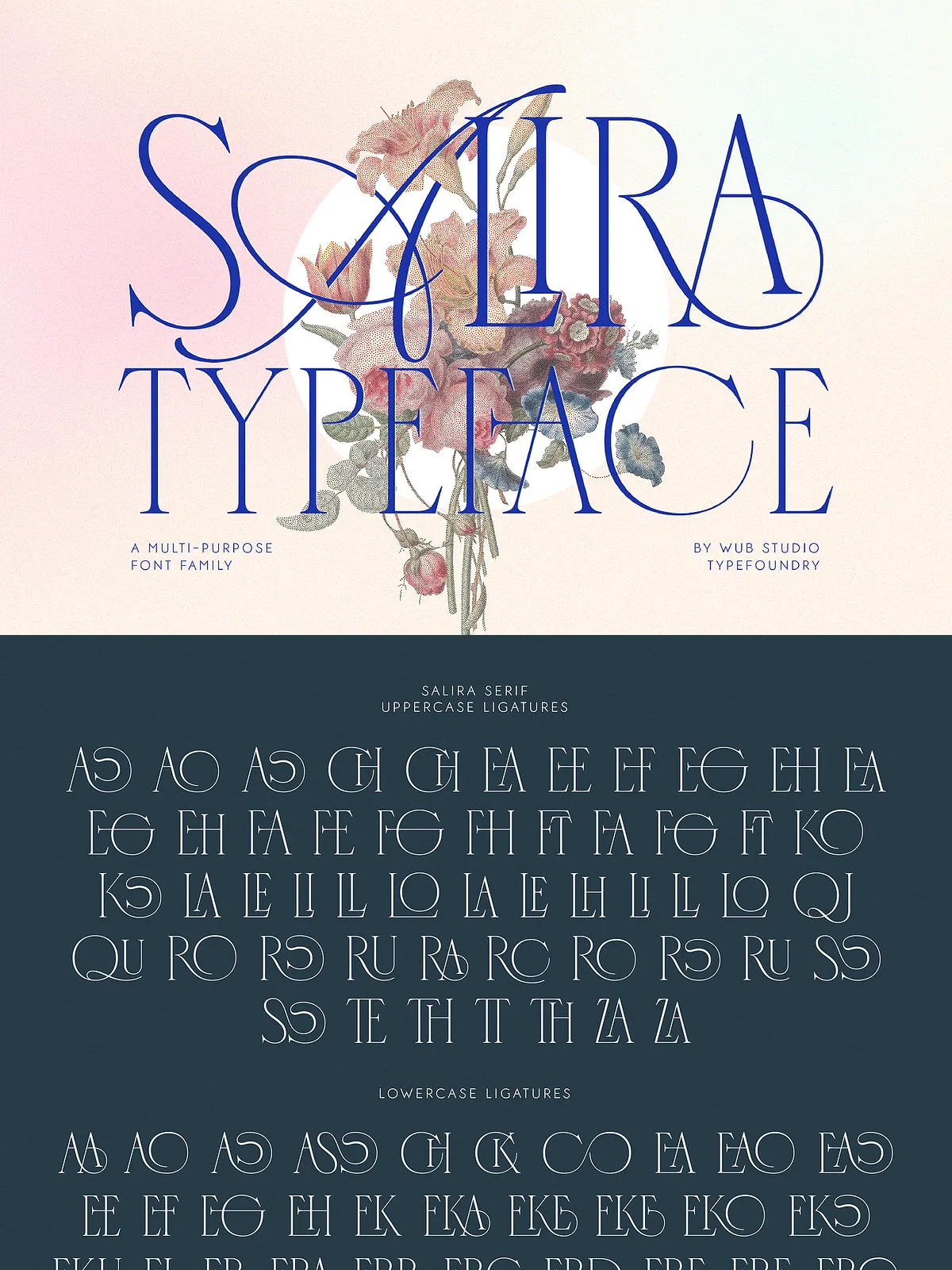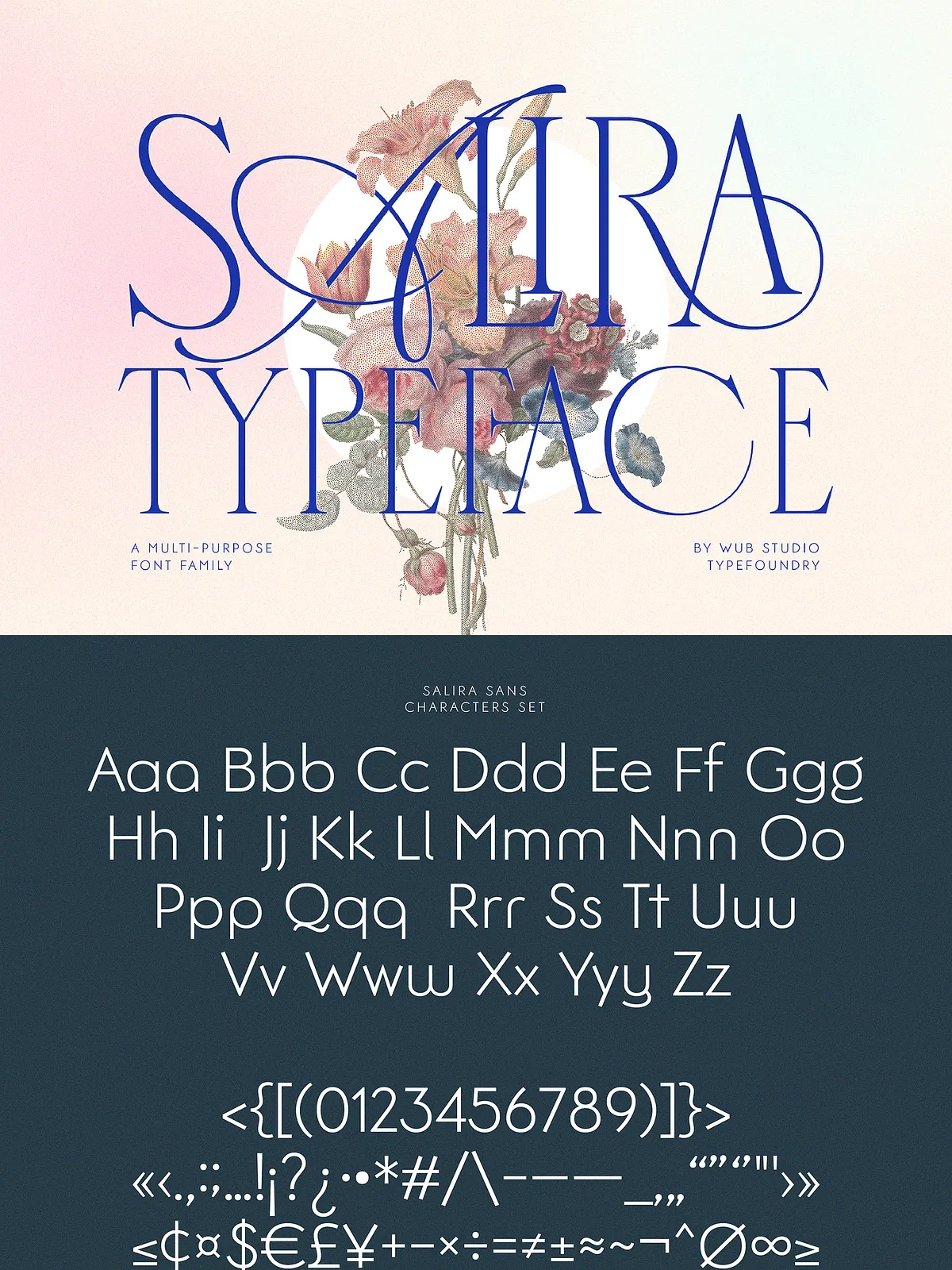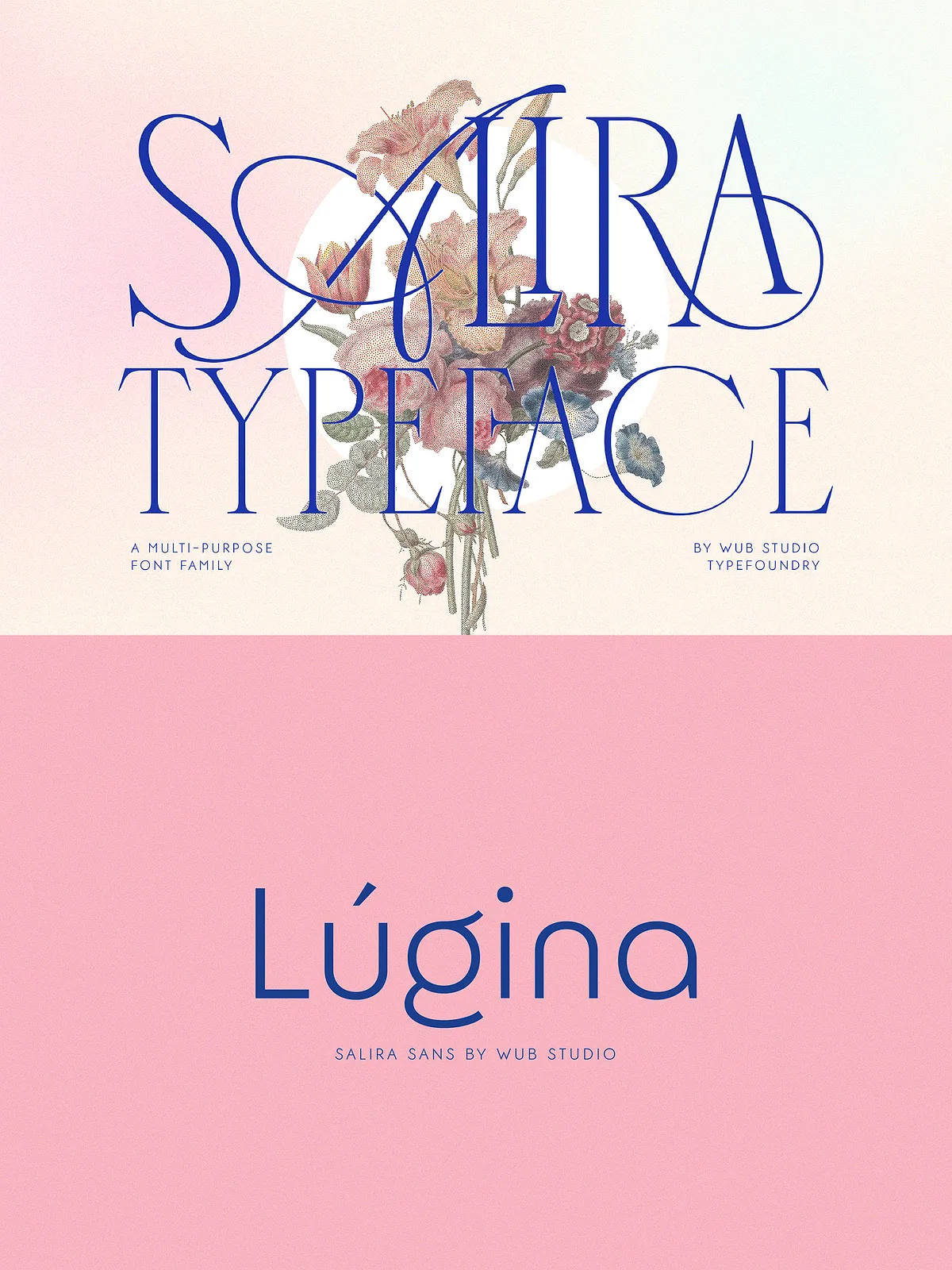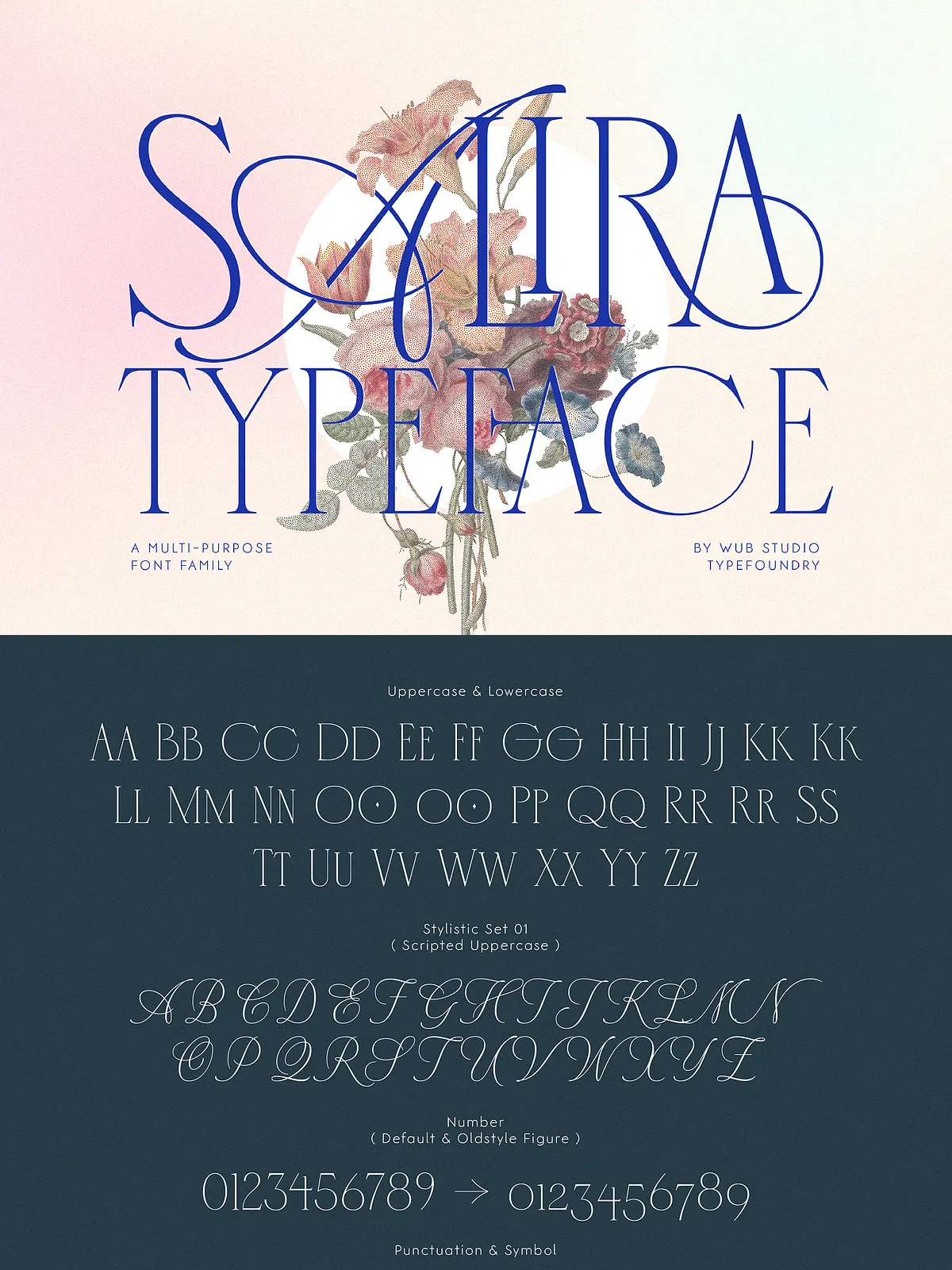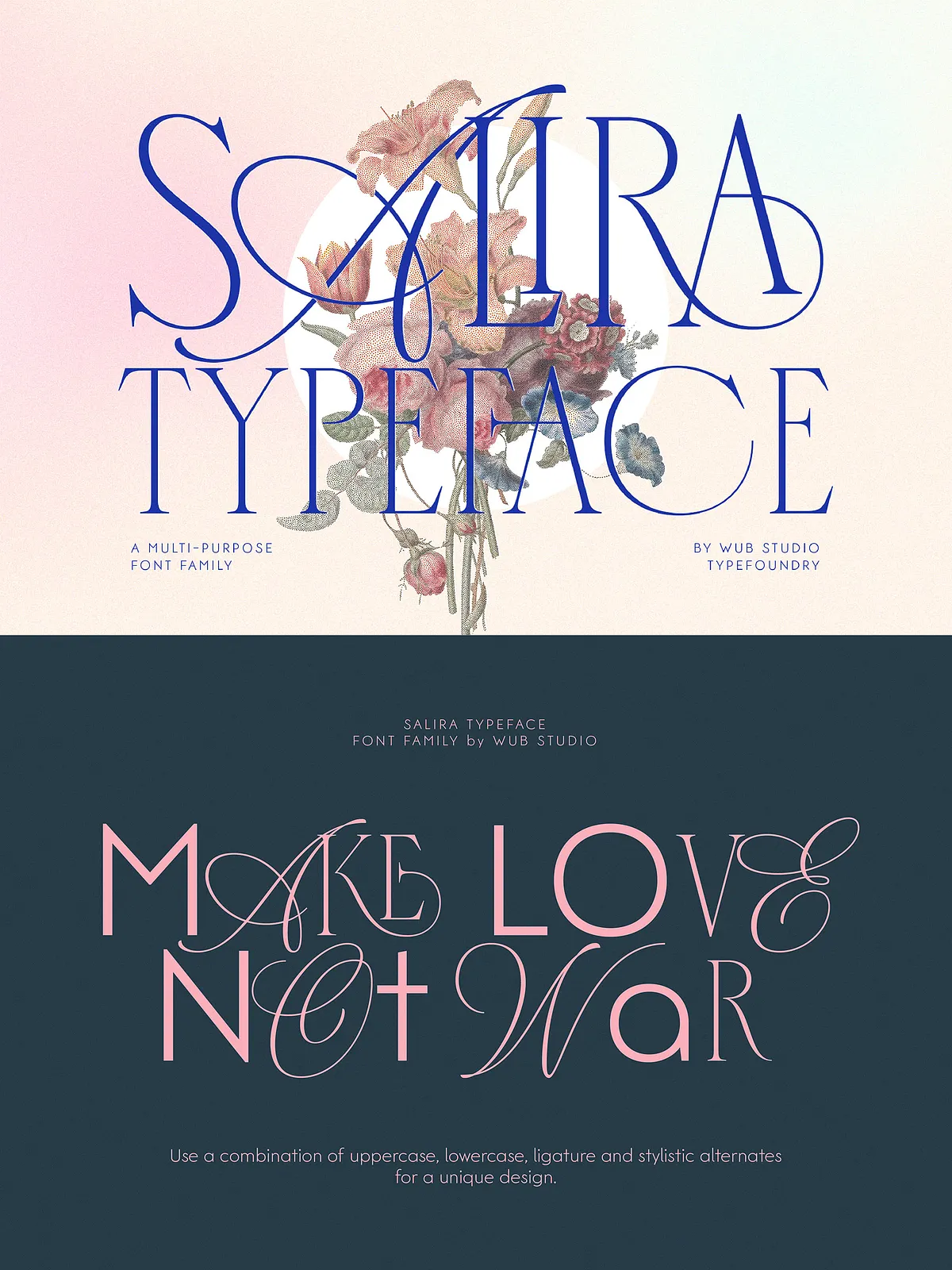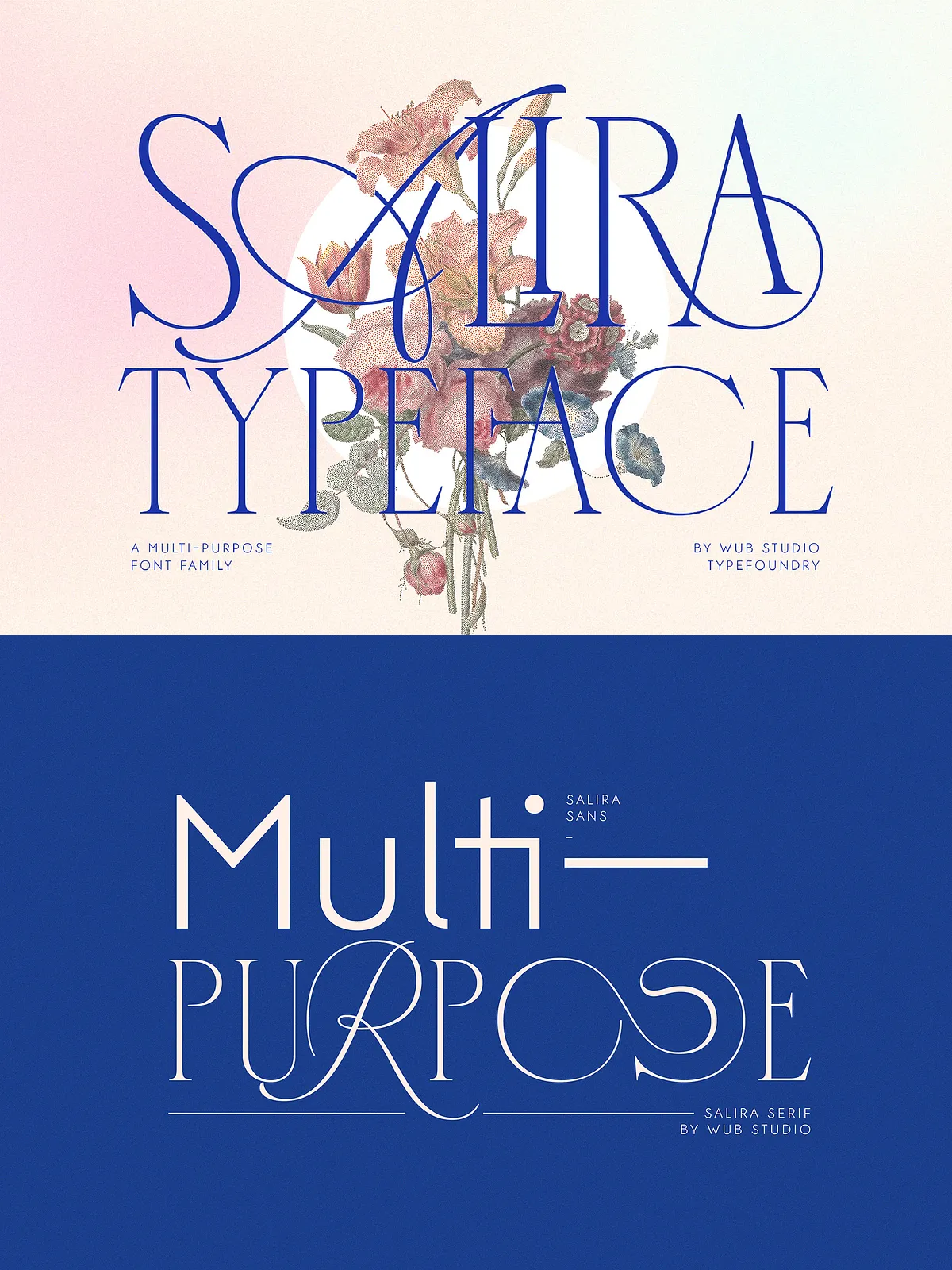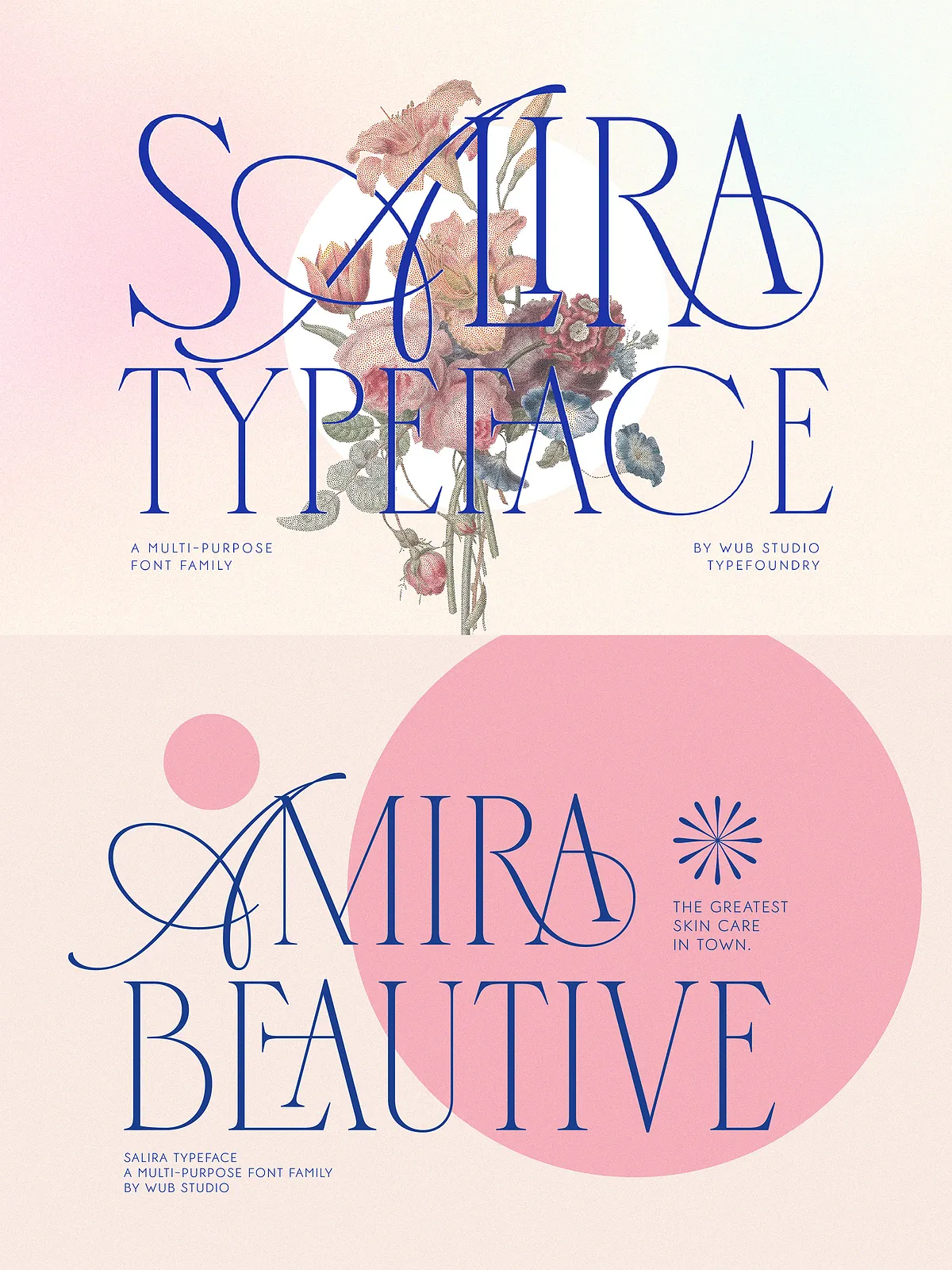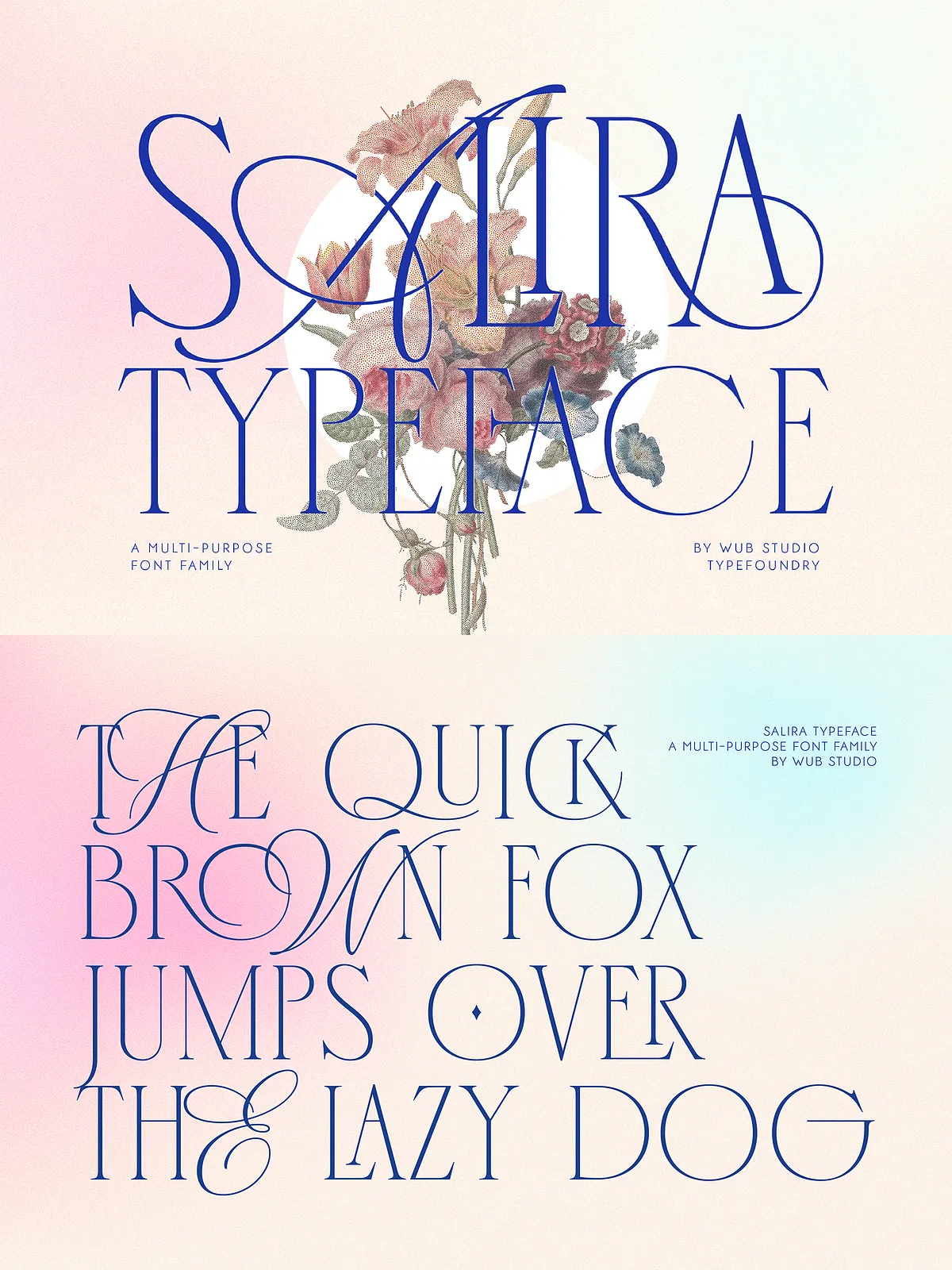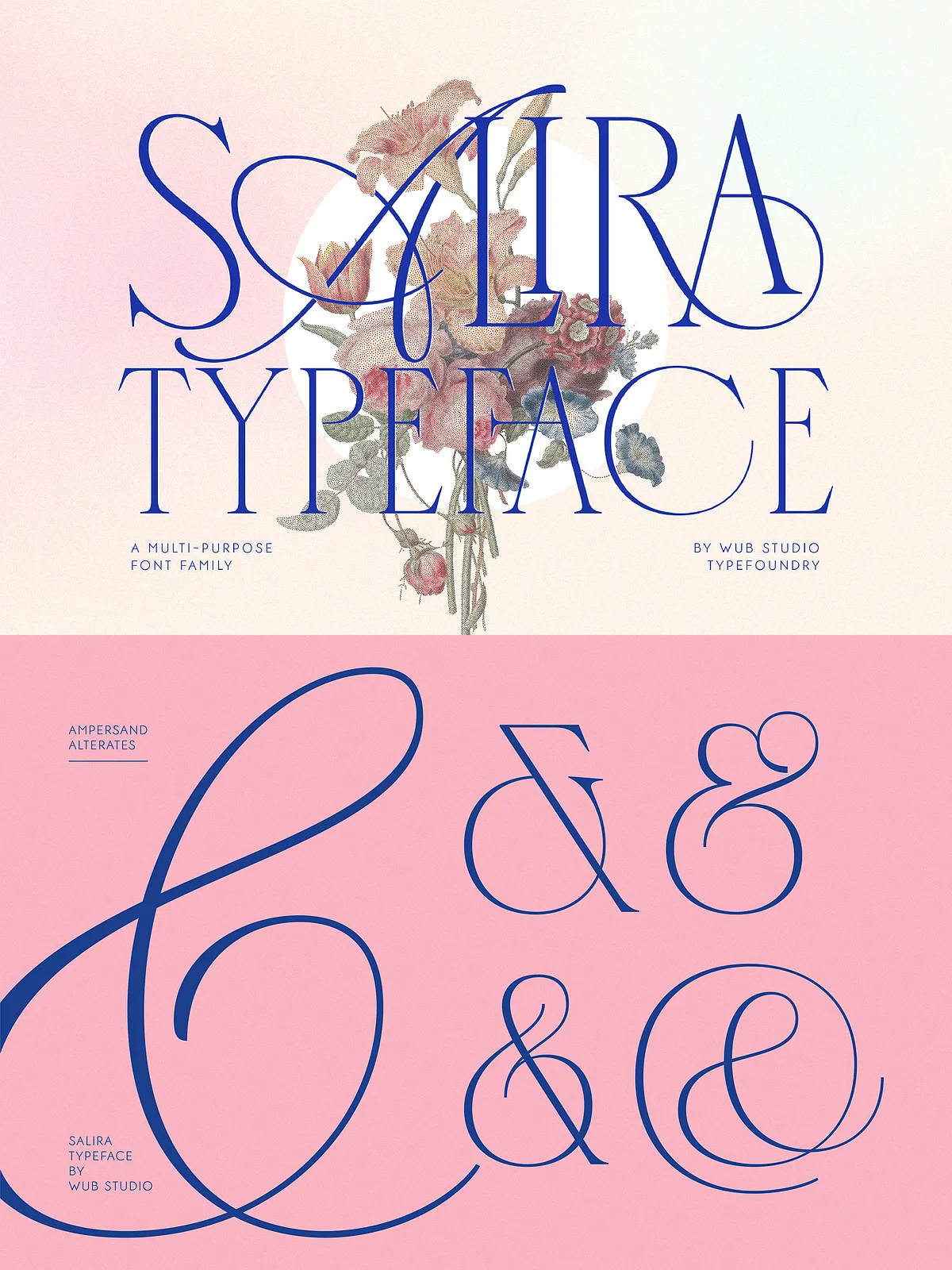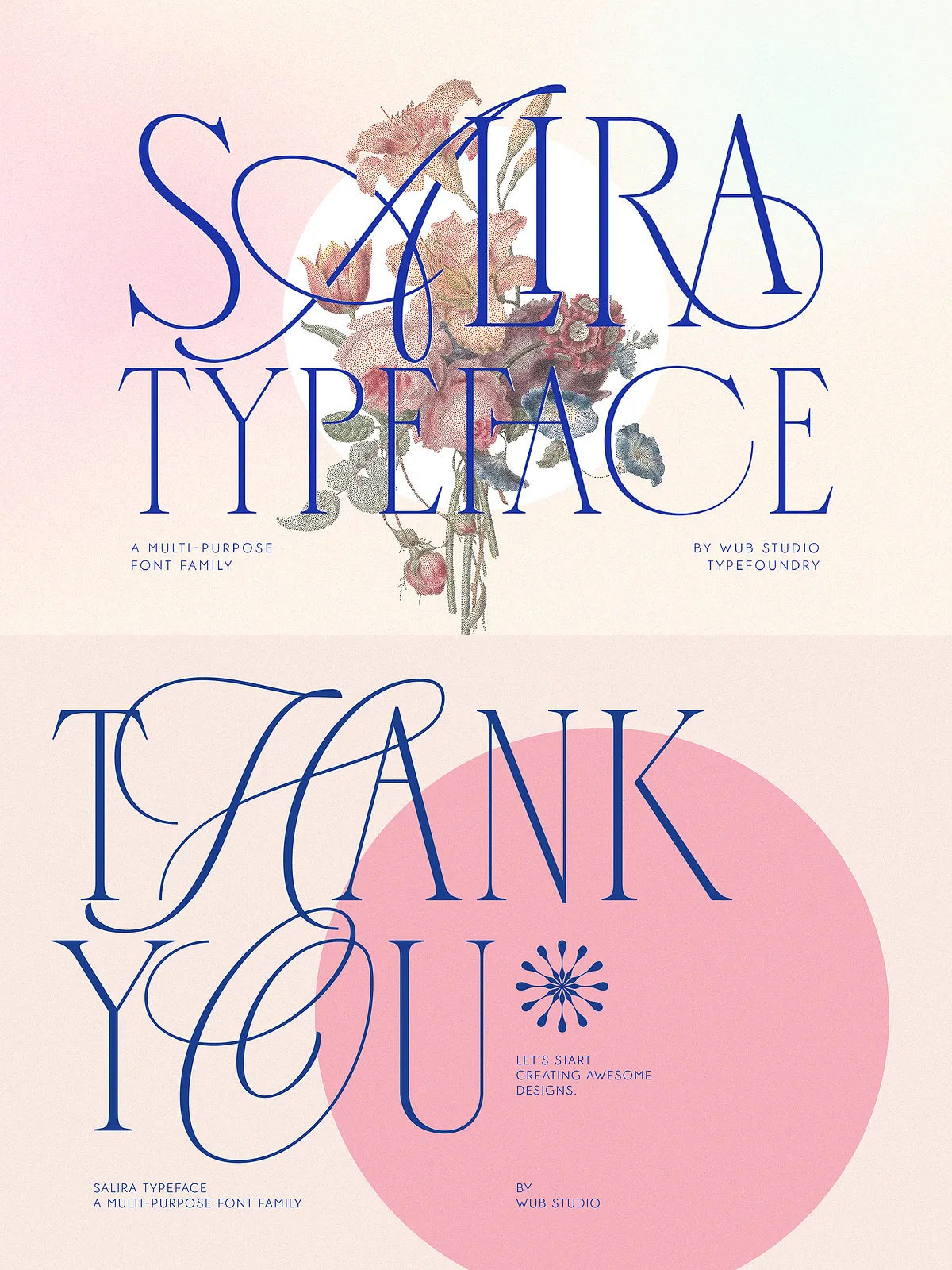
Salira Typeface
Introducing the Salira typeface. Is a multi-purpose font family that contains serif and sans serif. Or commonly called Font Duo.
Uniquely, in serif fonts. There is a combination of Script and Serif that makes this font called Multi-purpose font. The design will look very unique and eye-catching if it’s combined properly. I’m sure you are good at doing it.
In addition, there are many ligatures found in serif fonts. Do you want to make an initial logo? Yep, the ligature is perfect for making it.